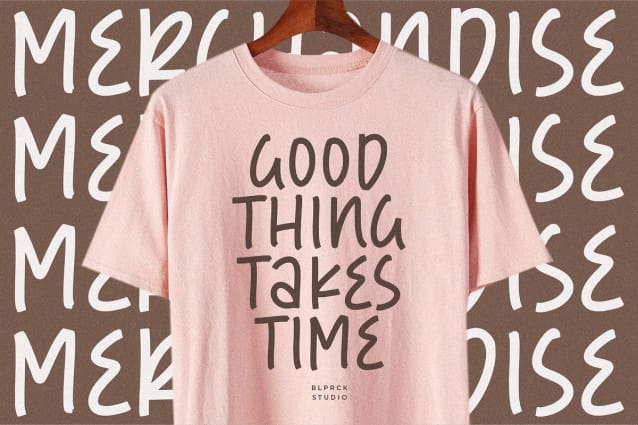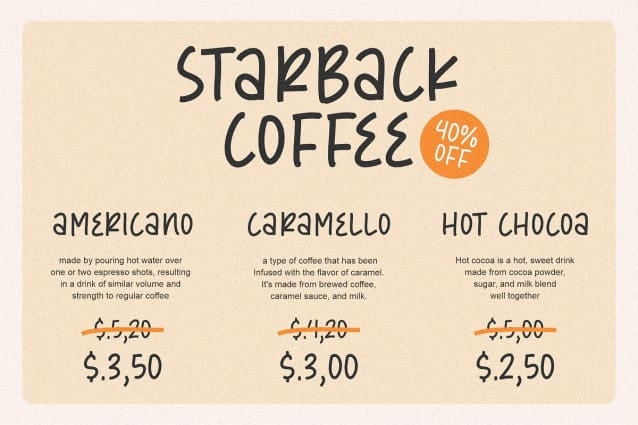
Cookie Jars Font
Cookie Jars Font is a Handdrawn Font. Whether you’re using it for crafts, digital design, presentations, or making greeting cards, this font has the potential to become your favorite go-to font, no matter the occasion!